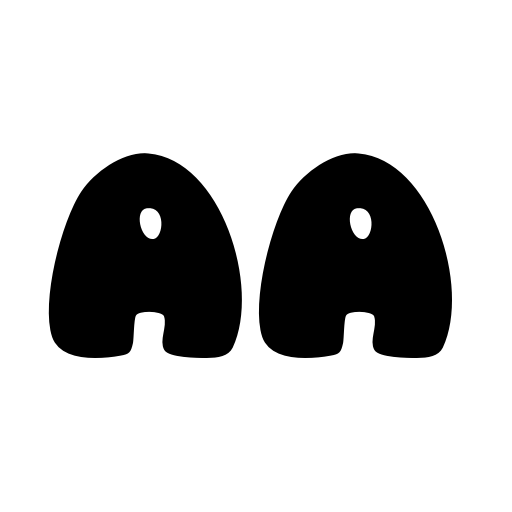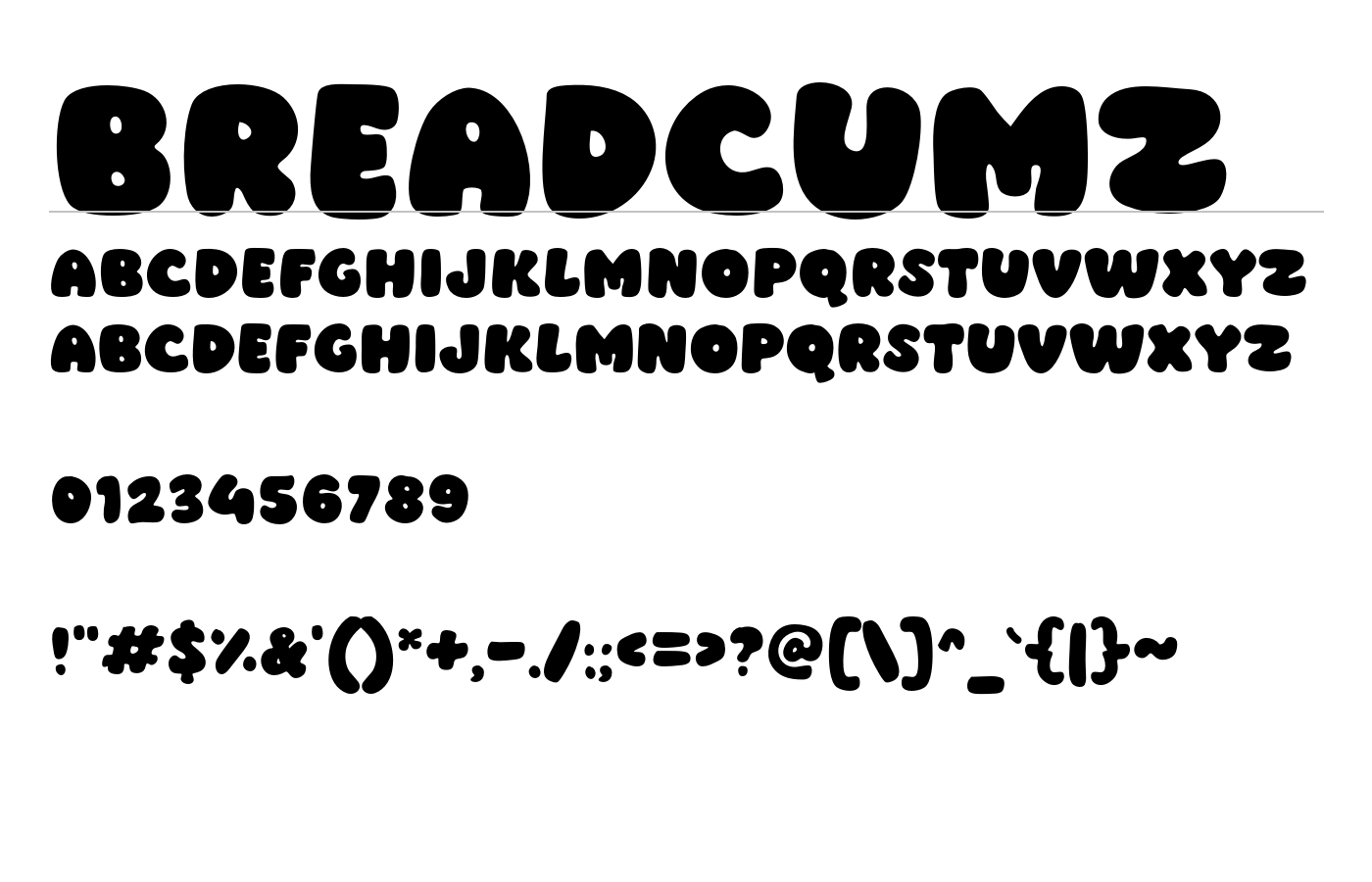
Breadcumz is a bold, playful sans serif font with thick, rounded letterforms that create a fun and friendly vibe. Its chunky style and soft edges make it perfect for eye-catching headlines, children’s books, or casual branding that wants to feel approachable and lively. This font works well where a cheerful and informal tone is desired, adding personality without sacrificing readability.
Breadcumz Font
About Breadcumz Font